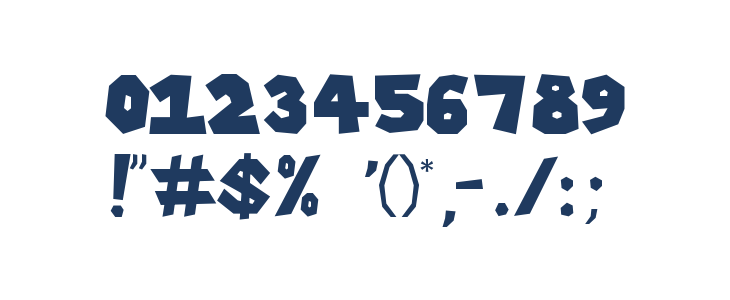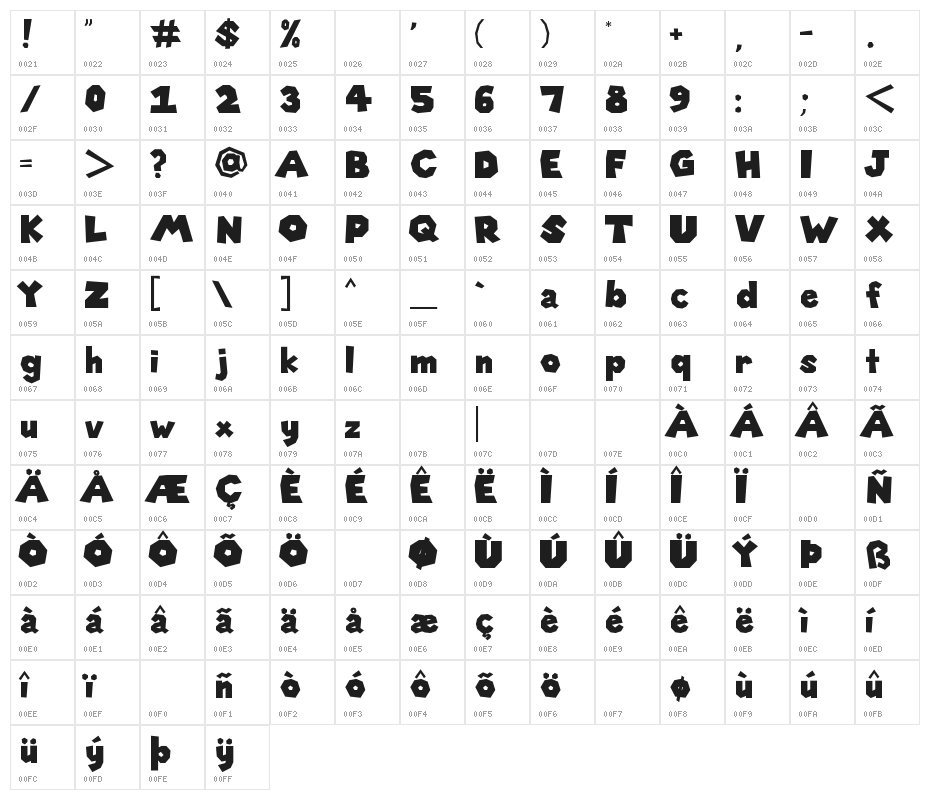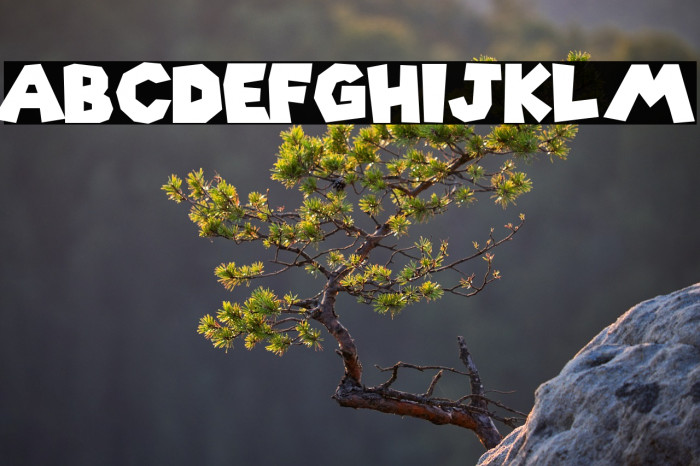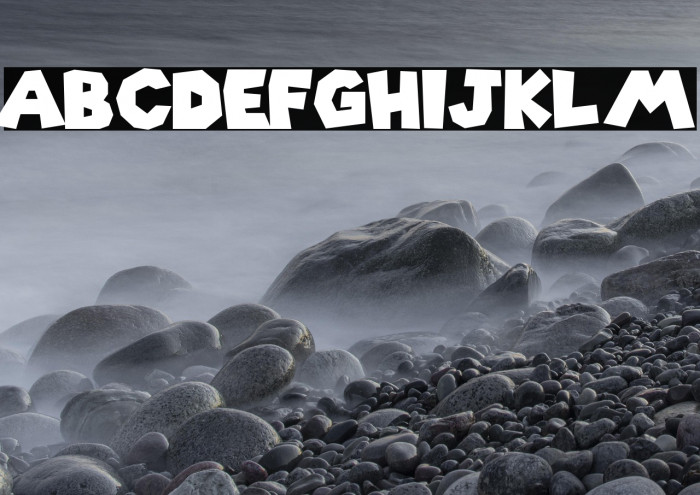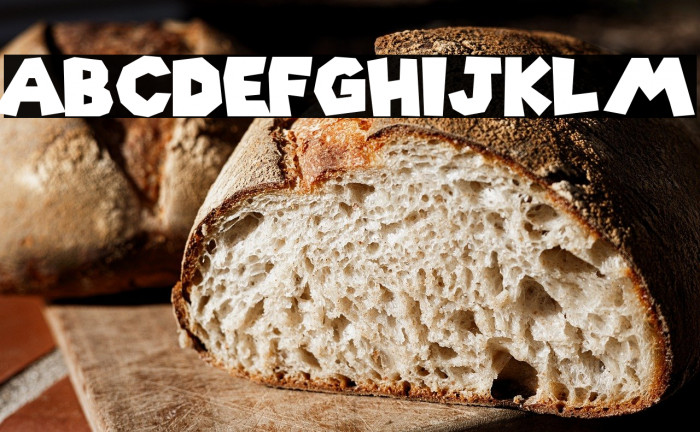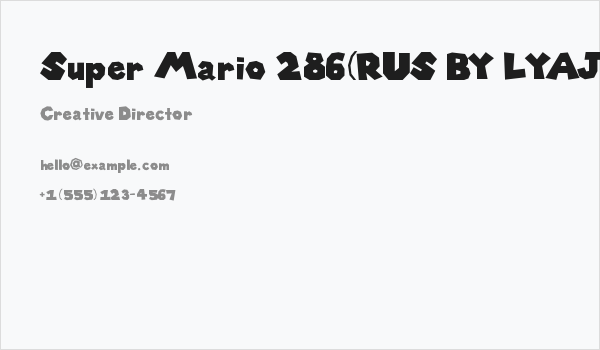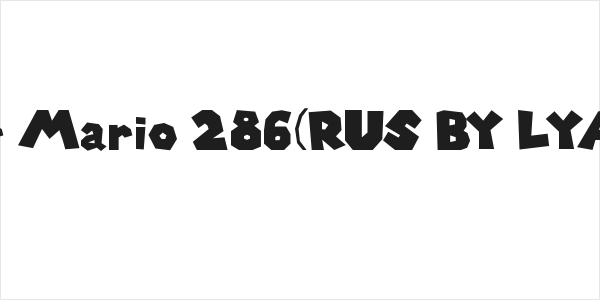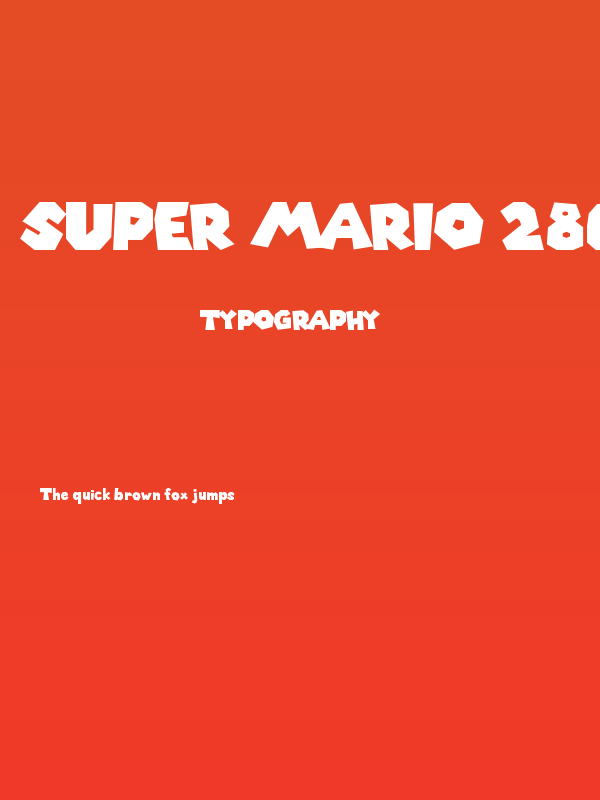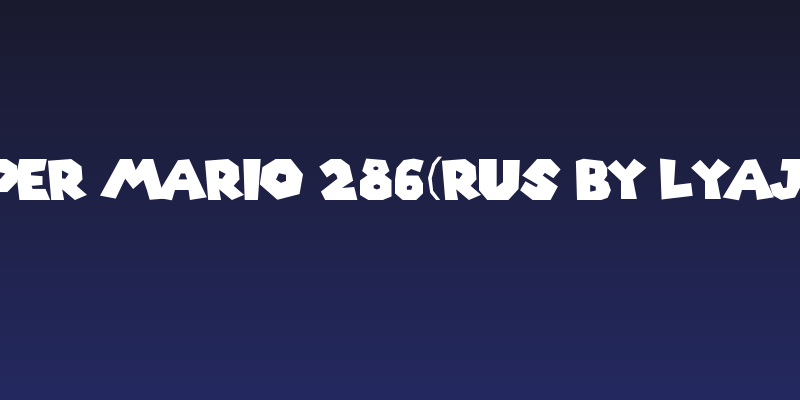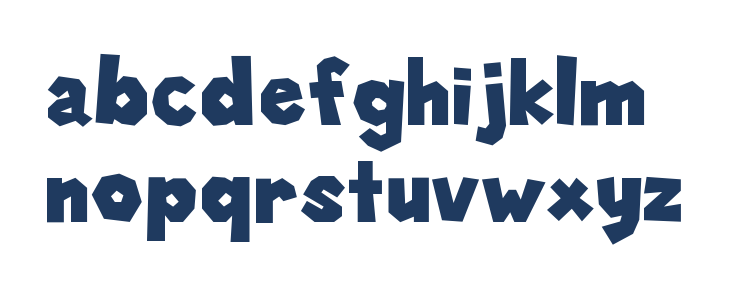
Super Mario 286(RUS BY LYAJKA) Font
Super Mario 286(RUS BY LYAJKA) Description
This font features a playful and bold design, characterized by its irregular, jagged edges and a sense of movement. The letters are thick and chunky, giving a strong visual impact. The uppercase and lowercase characters maintain a consistent style, with exaggerated angles and a slightly uneven baseline, adding to its whimsical charm. Numbers and special characters follow the same dynamic style, making it suitable for creative and fun applications. The font's unique appearance makes it stand out, perfect for projects that require a touch of personality and flair.
| Overall Style | Playful, Dynamic |
| Proposed Projects | Ideal for video game graphics, children's book covers, posters, and playful branding. |